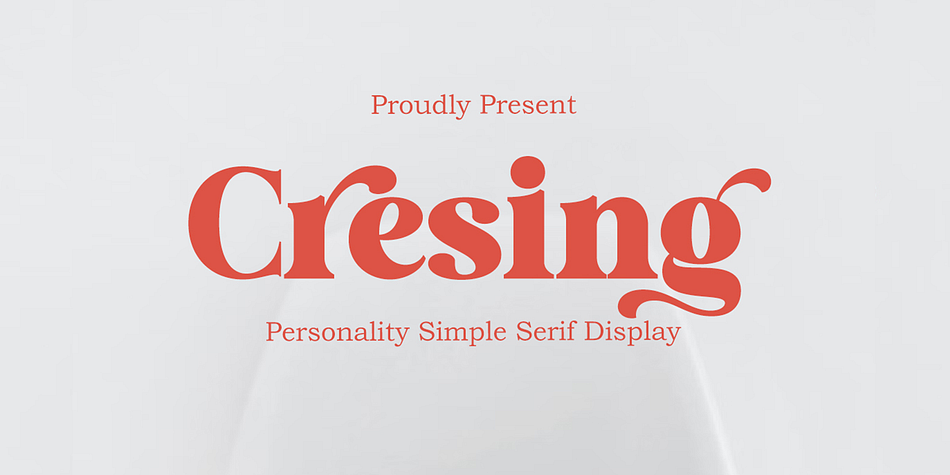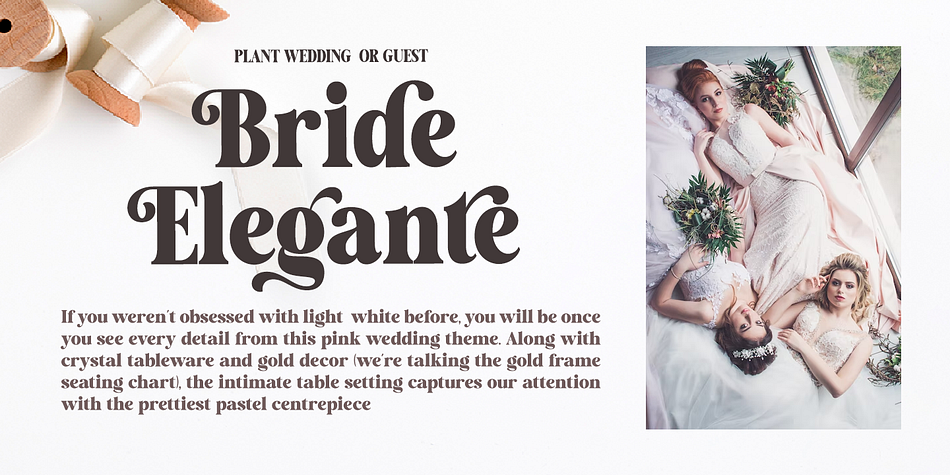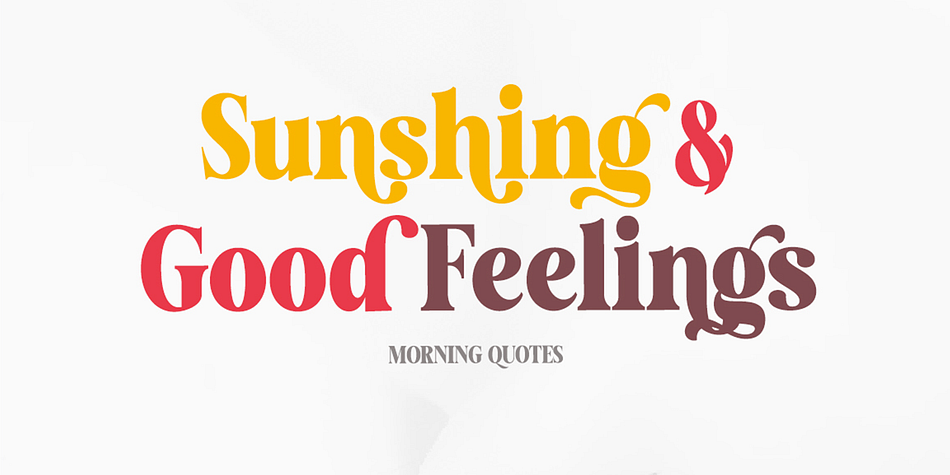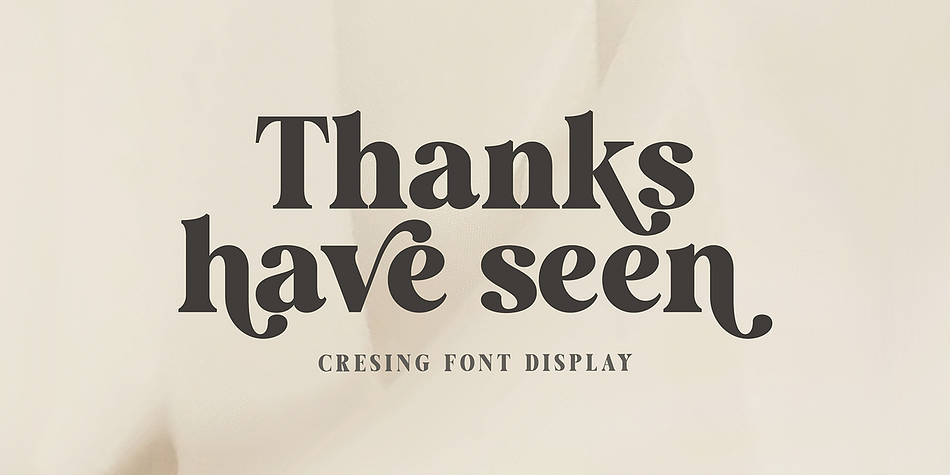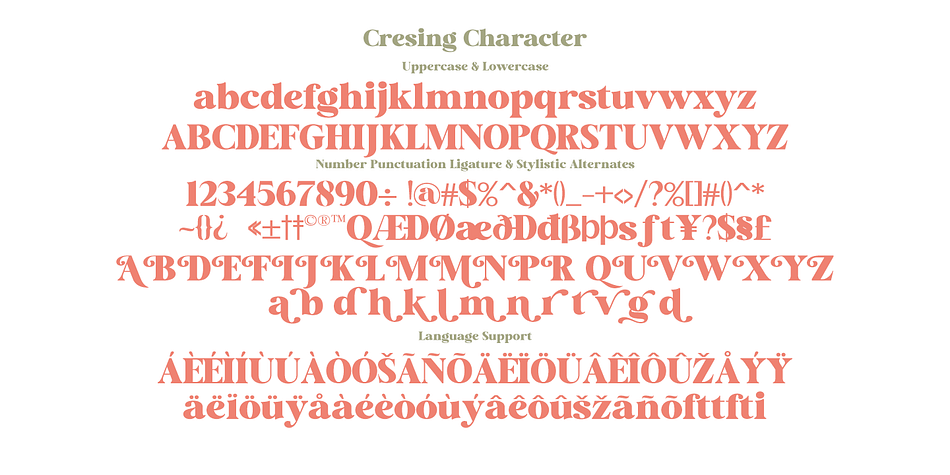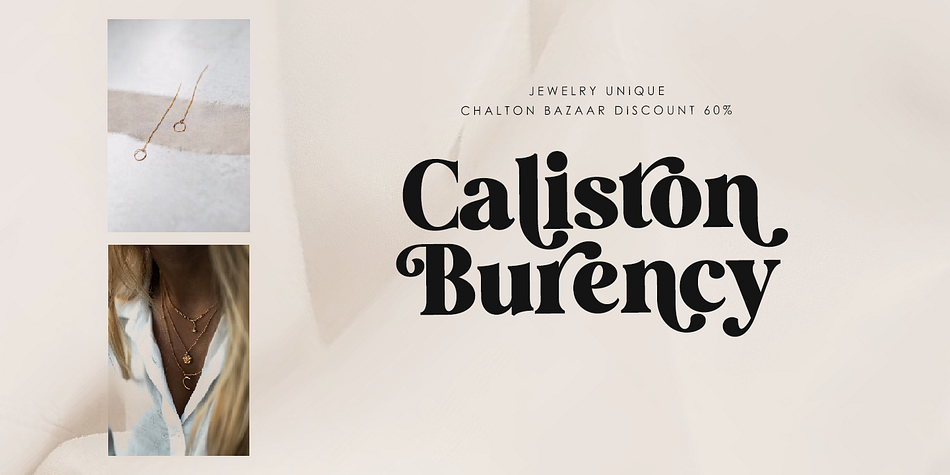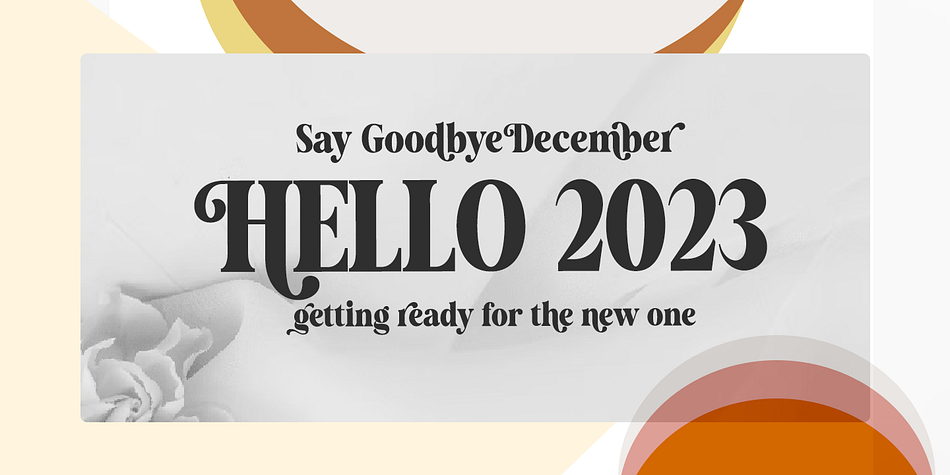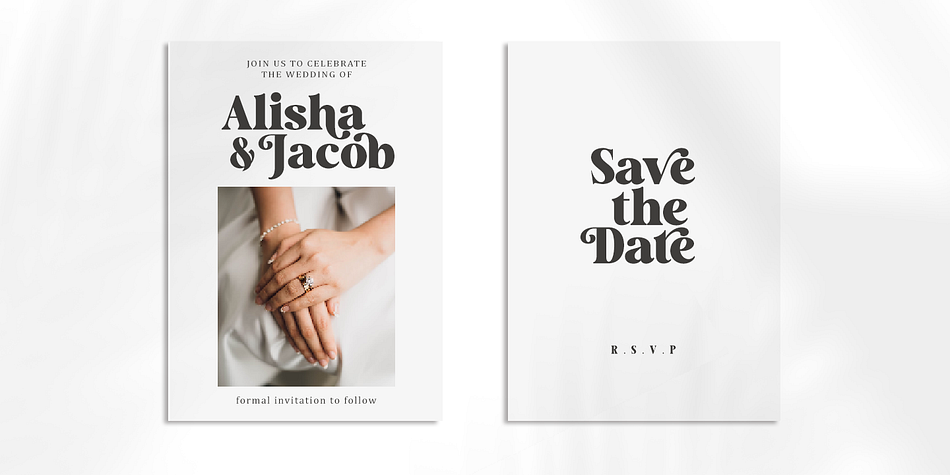
Cresing
Cresing is a display serif and retro font family published by Gatype.
Introducing the newest font Cresing is perfect for branding, poster design, t-shirts, invitations, designs for kids, and editorial designs. It comes with many styles, including fasteners. OpenType features include style sets, character variants, initial and final forms, and multilingual support.